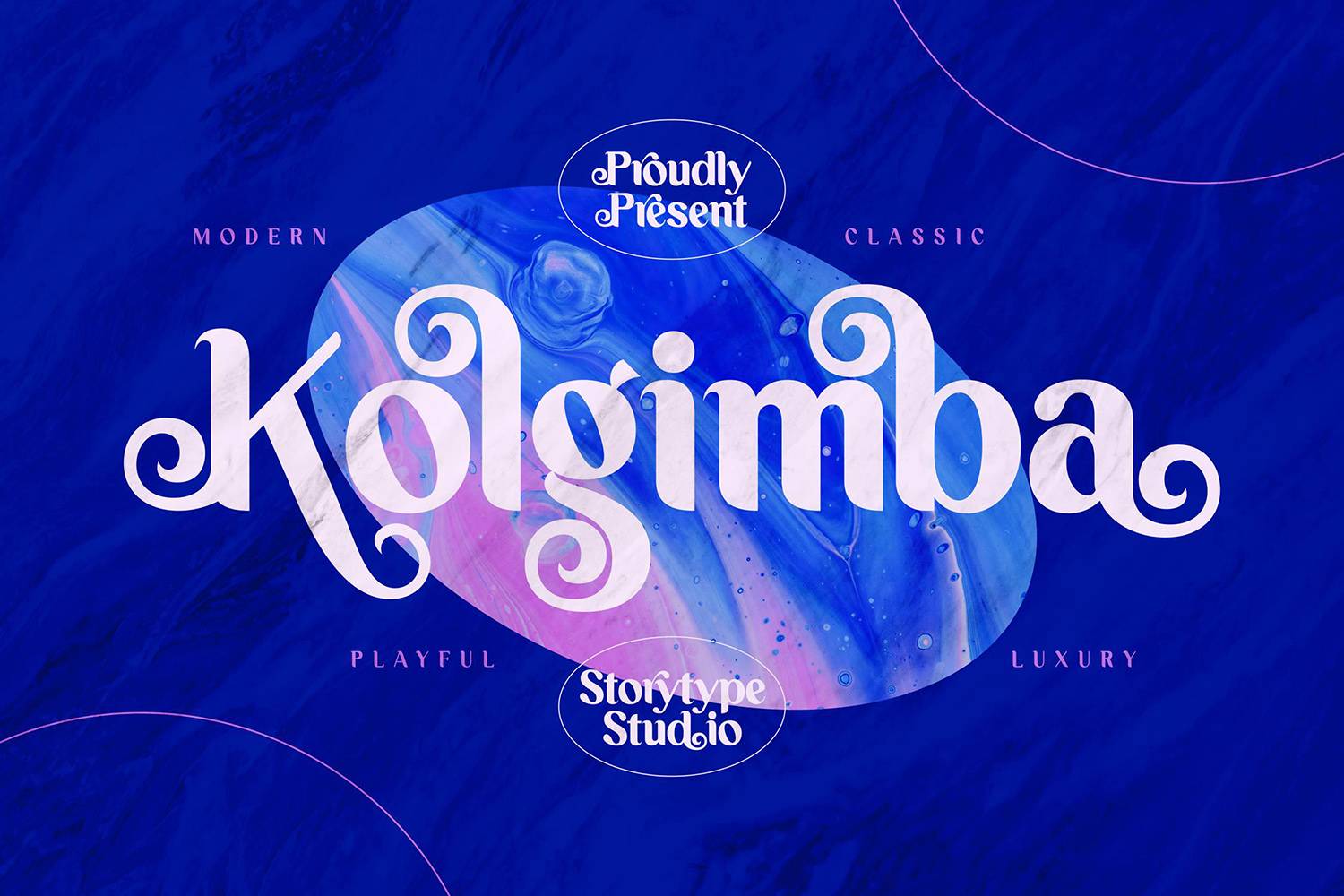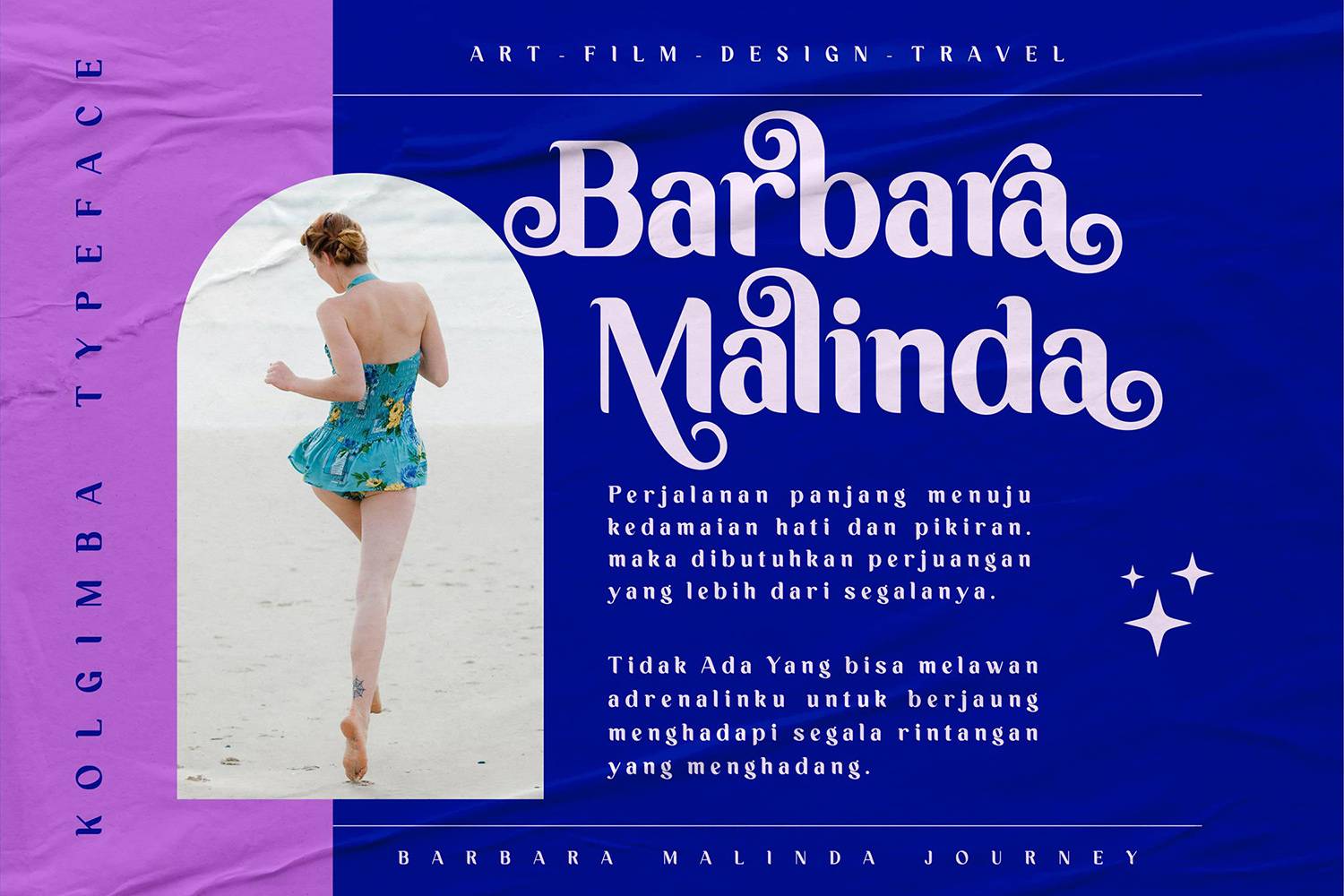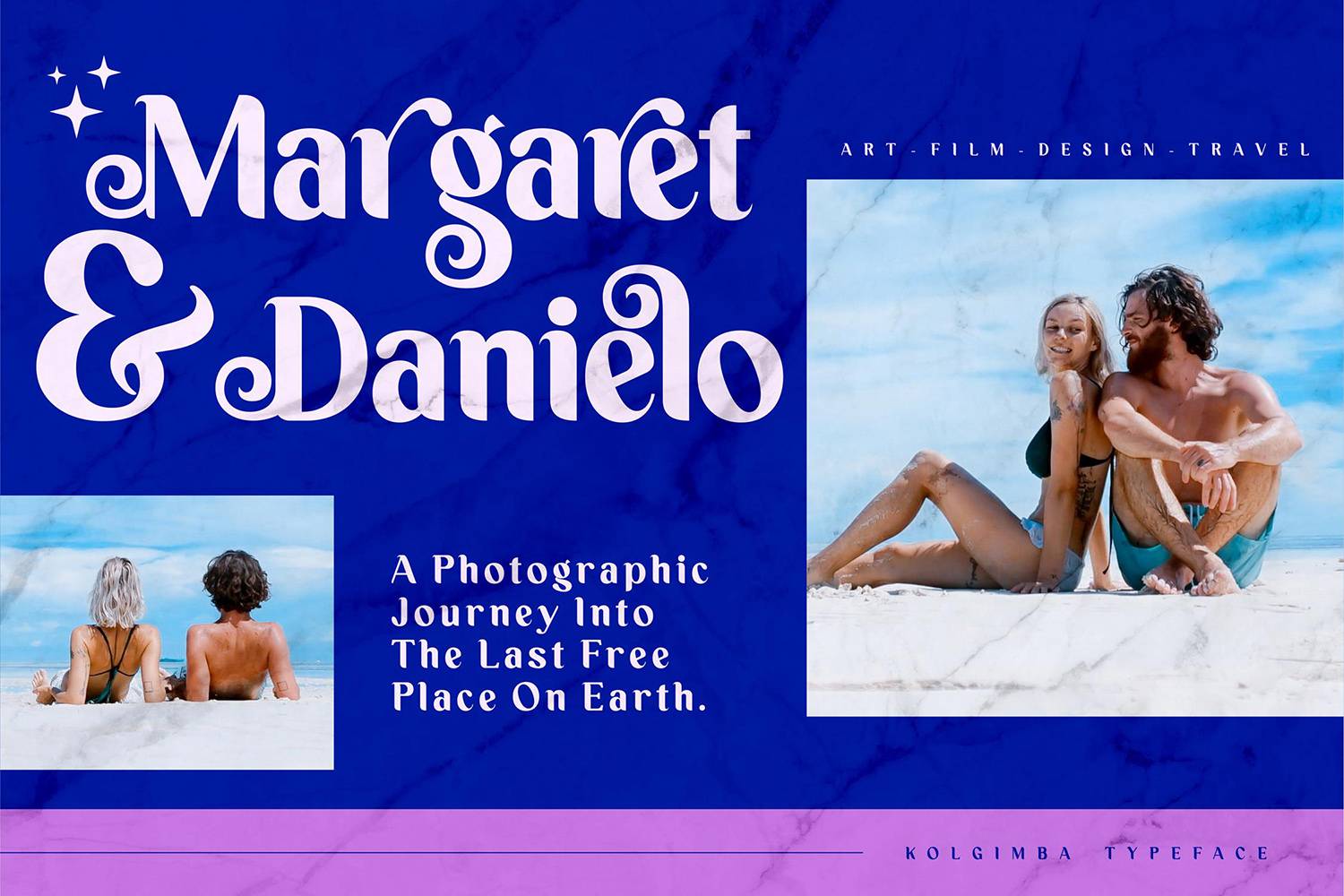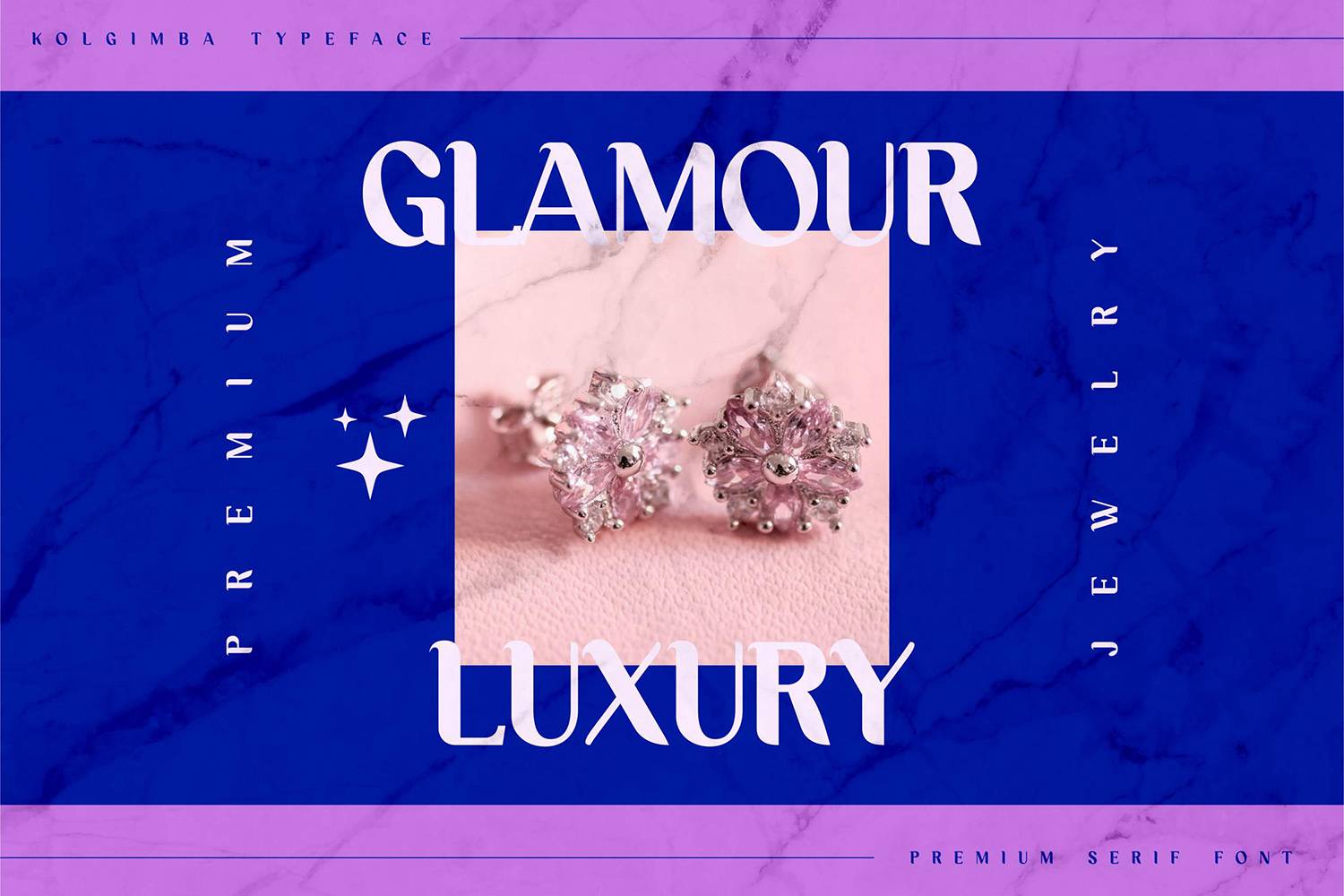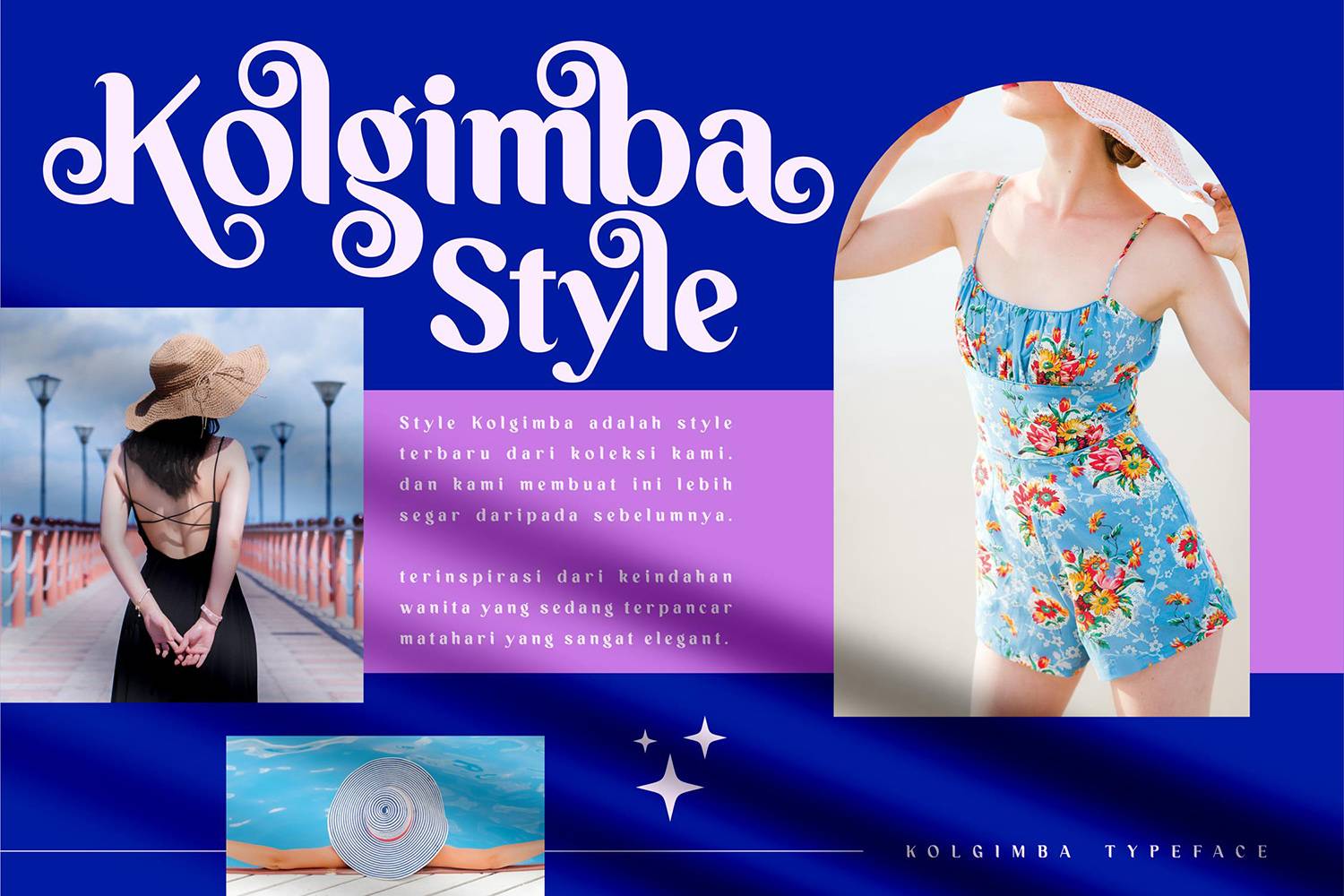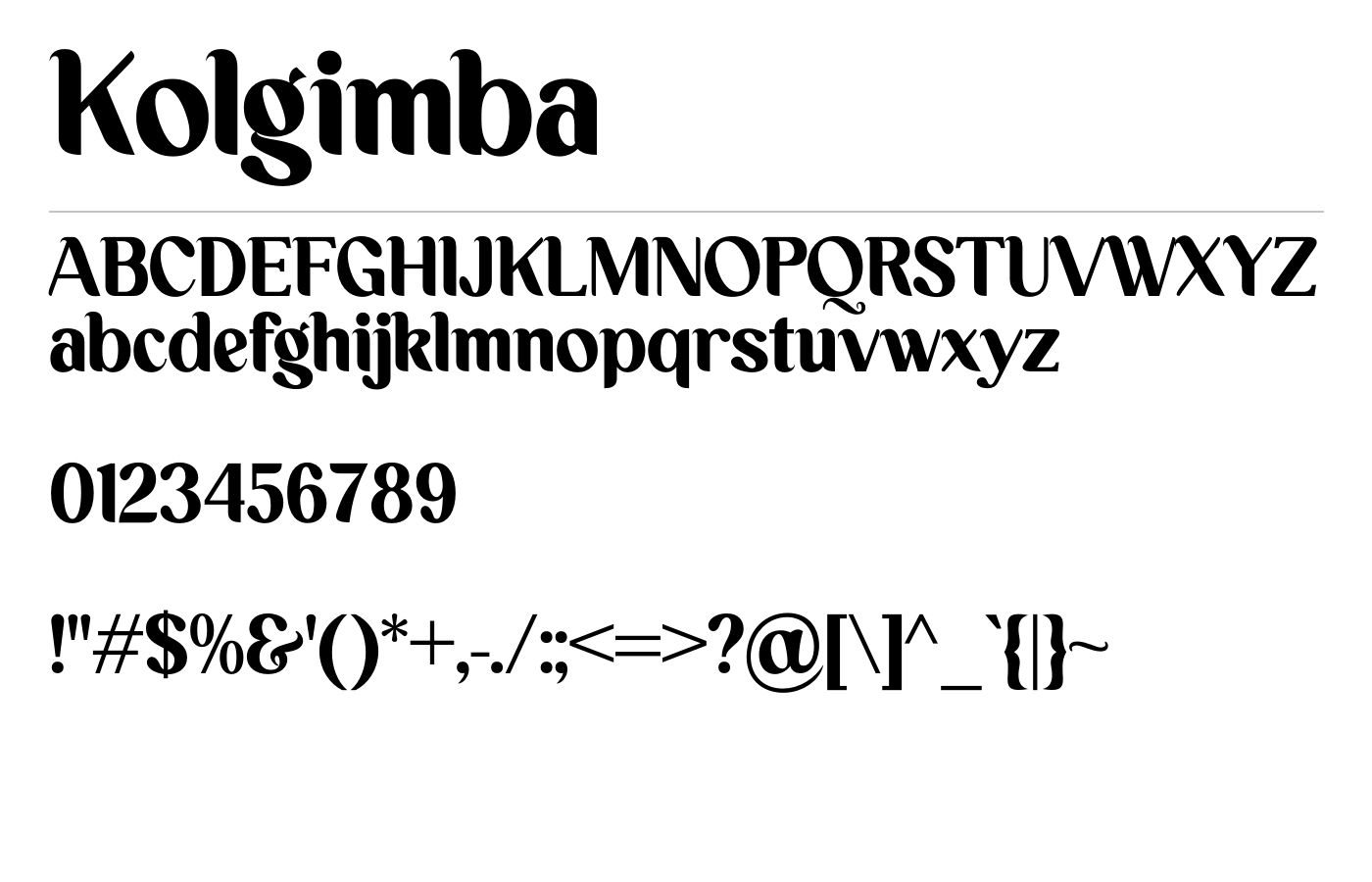
Kolgimba is a distinctive serif font with high contrast between thick and thin strokes, featuring elegant, bracketed serifs and unique letterforms that balance classic sophistication with a modern twist. Its bold weight and slightly condensed width give it a strong presence, making it ideal for stylish headlines, branding, and editorial designs that want to convey a sense of luxury and refined creativity. This font works beautifully in fashion, magazine covers, and logos where a statement of elegance and originality is desired.
Kolgimba Font
About Kolgimba Font